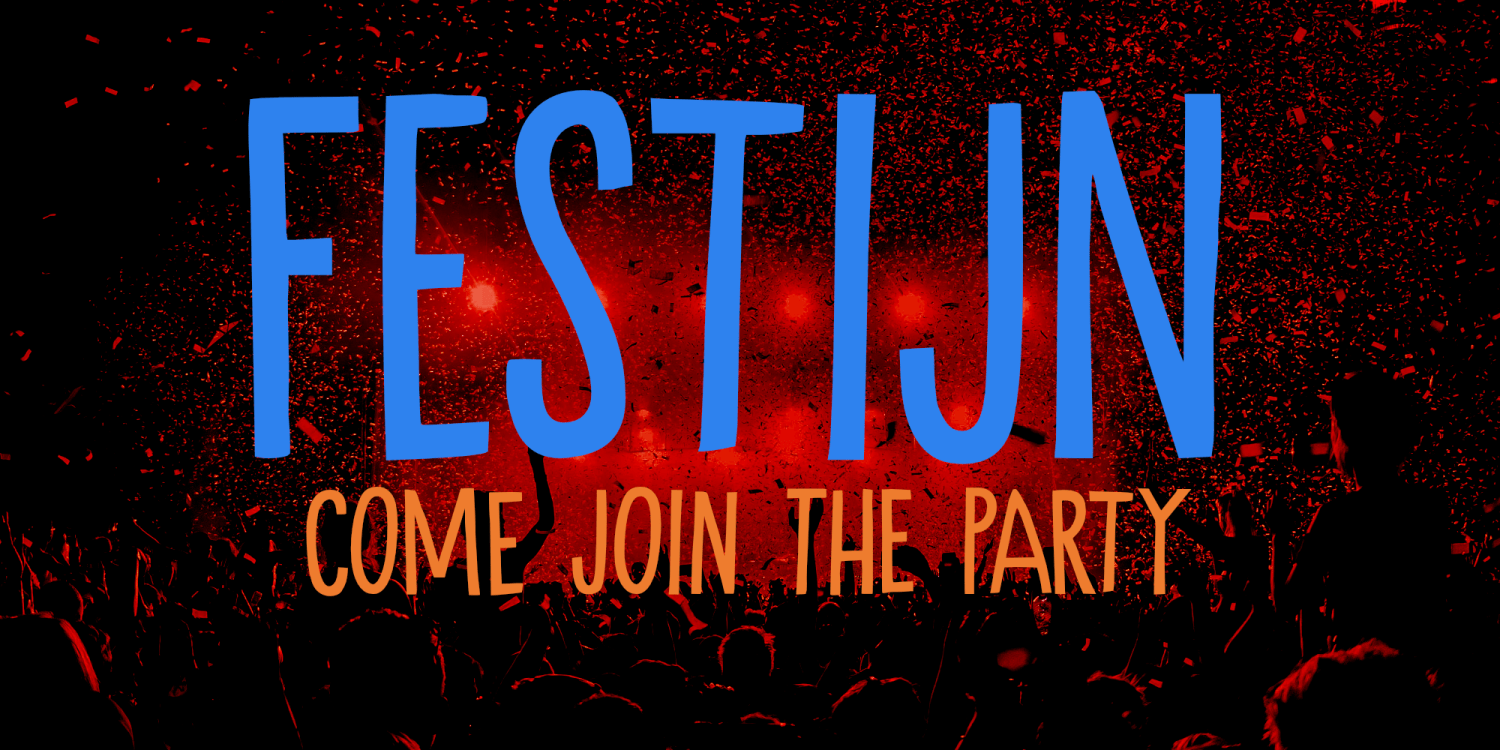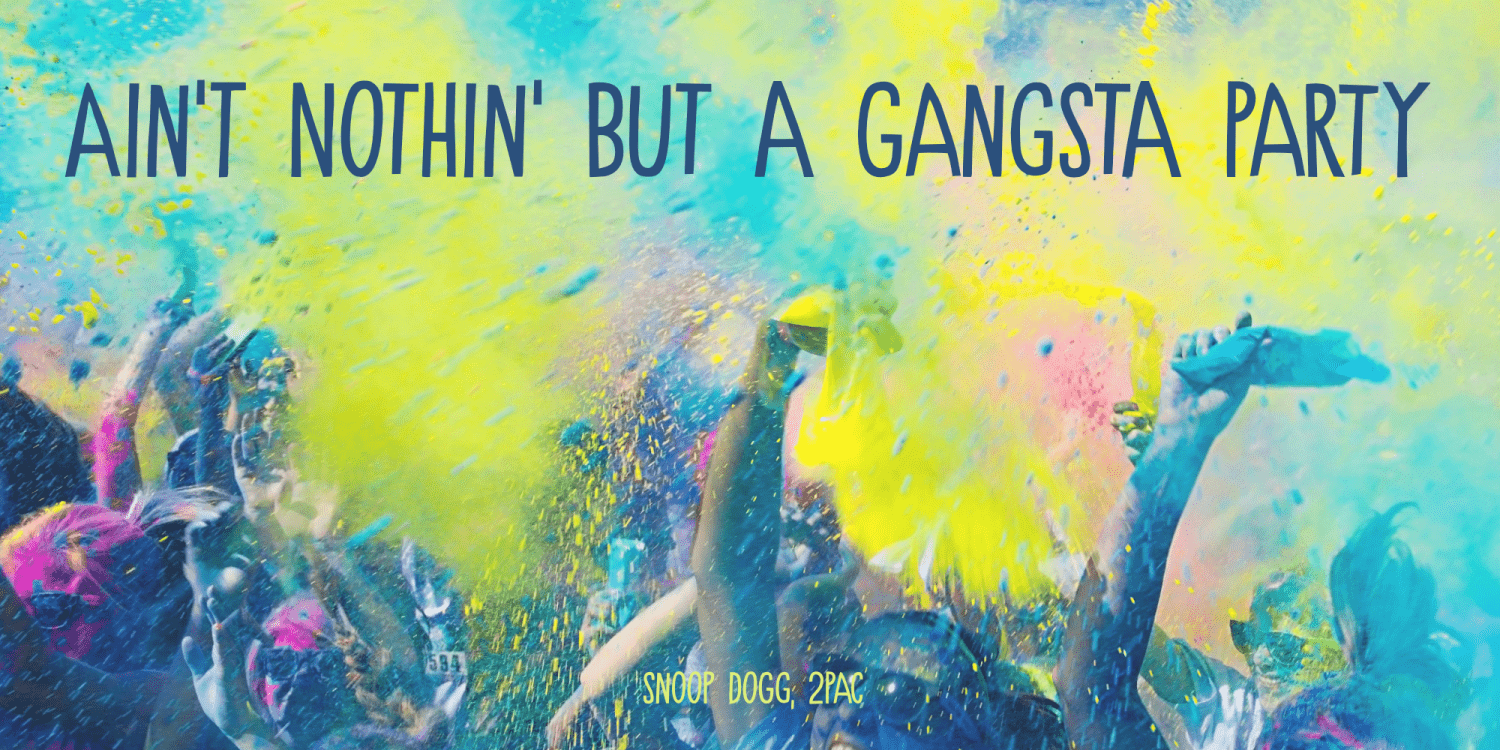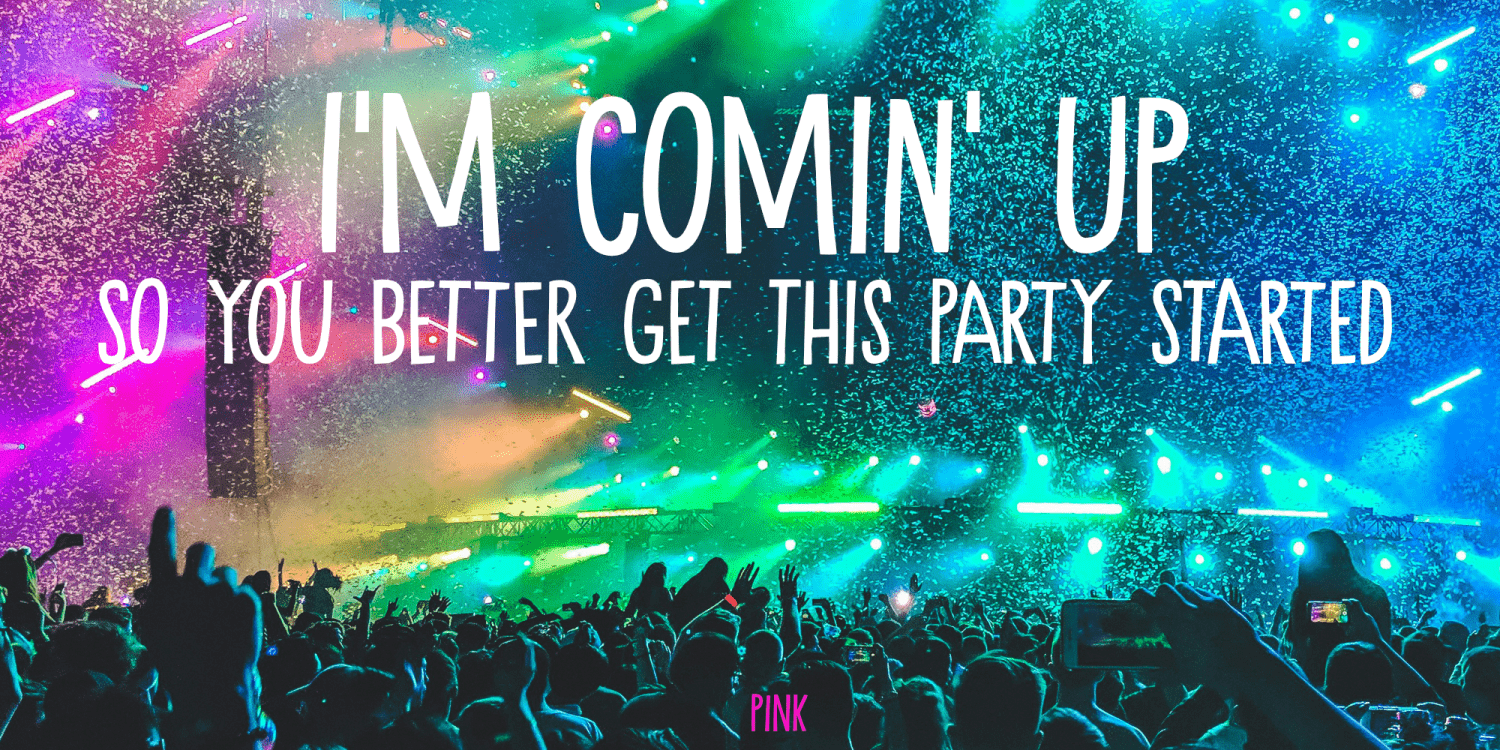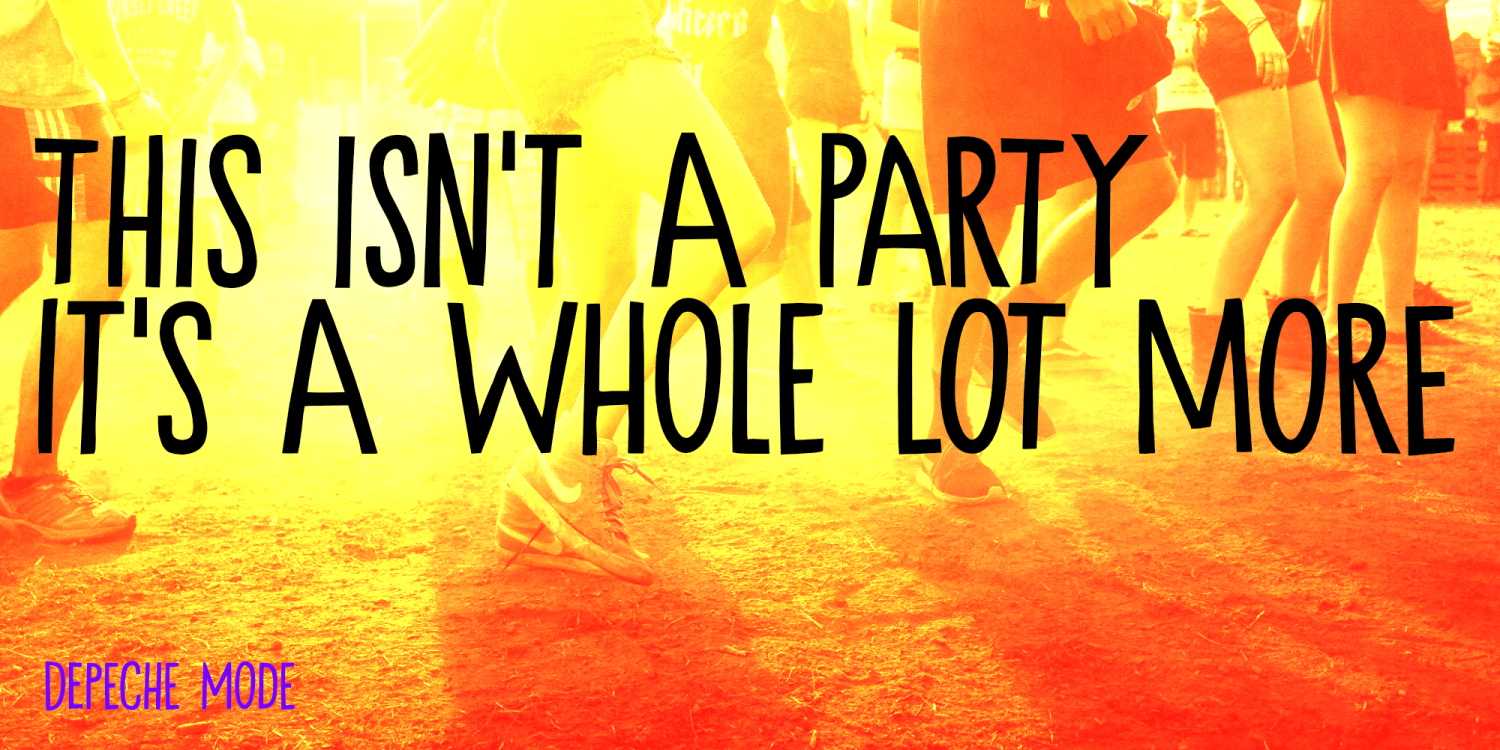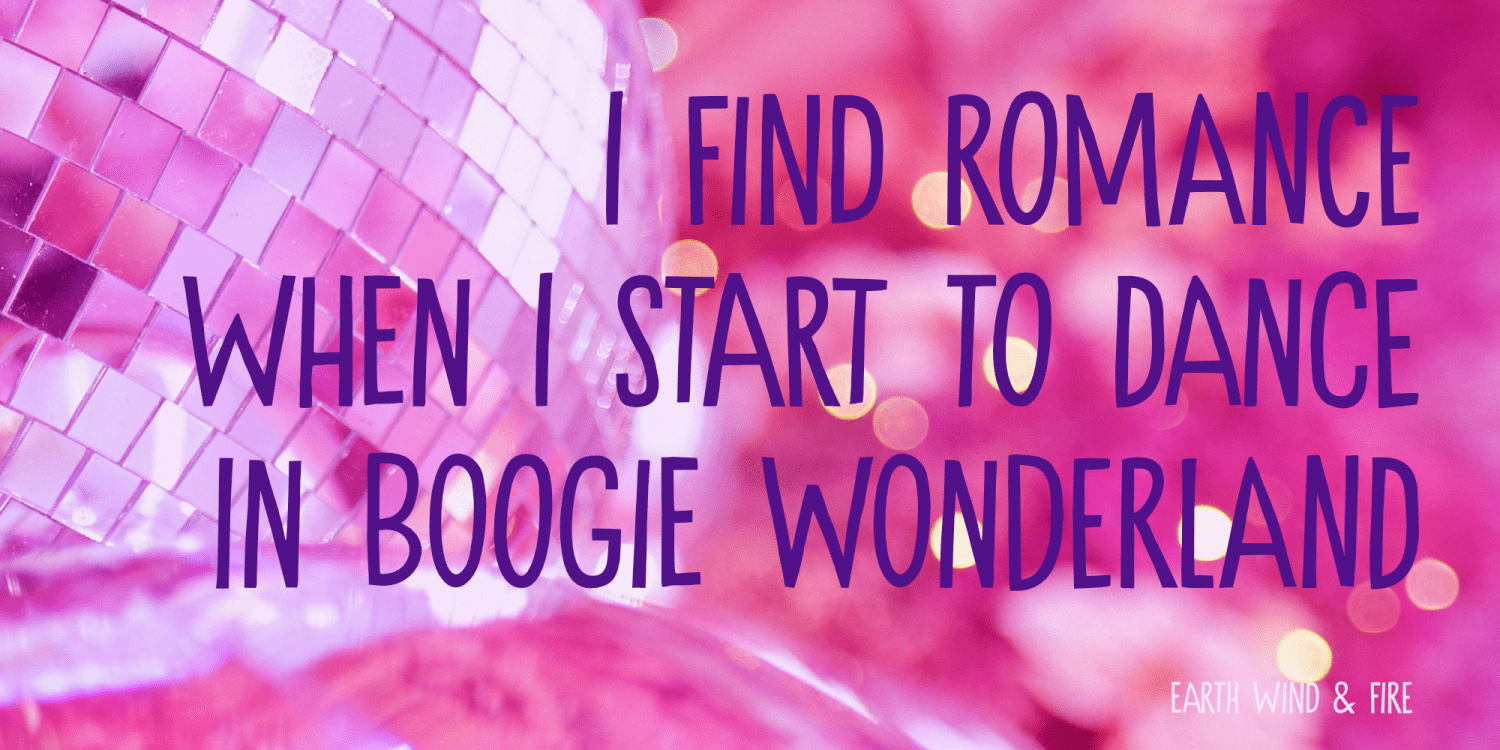
Festijn
Festijn - in Dutch - means ‘festival’, ‘party’, or ‘happening’, depending on the word you use before. So a ‘dansfestijn’ is a dance party and an ‘eetfestijn’ is a food festival.
Festijn is a handmade, all caps, tall & thin font. Use it for your party posters, your food truck menus or just like it is - because you like it so much!
Festijn by Hanoded